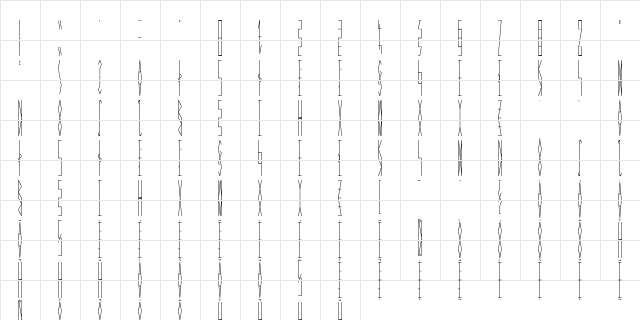
JMH Celaeno Book Regular
Design Context for JMH Celaeno Book Typeface
JMH Celaeno Book is a composed and adaptable typeface that performs quietly and consistently across a wide range of design contexts.
Pro Tip: Use JMH Celaeno Book in both headline and body roles to test its range before committing to a single application.